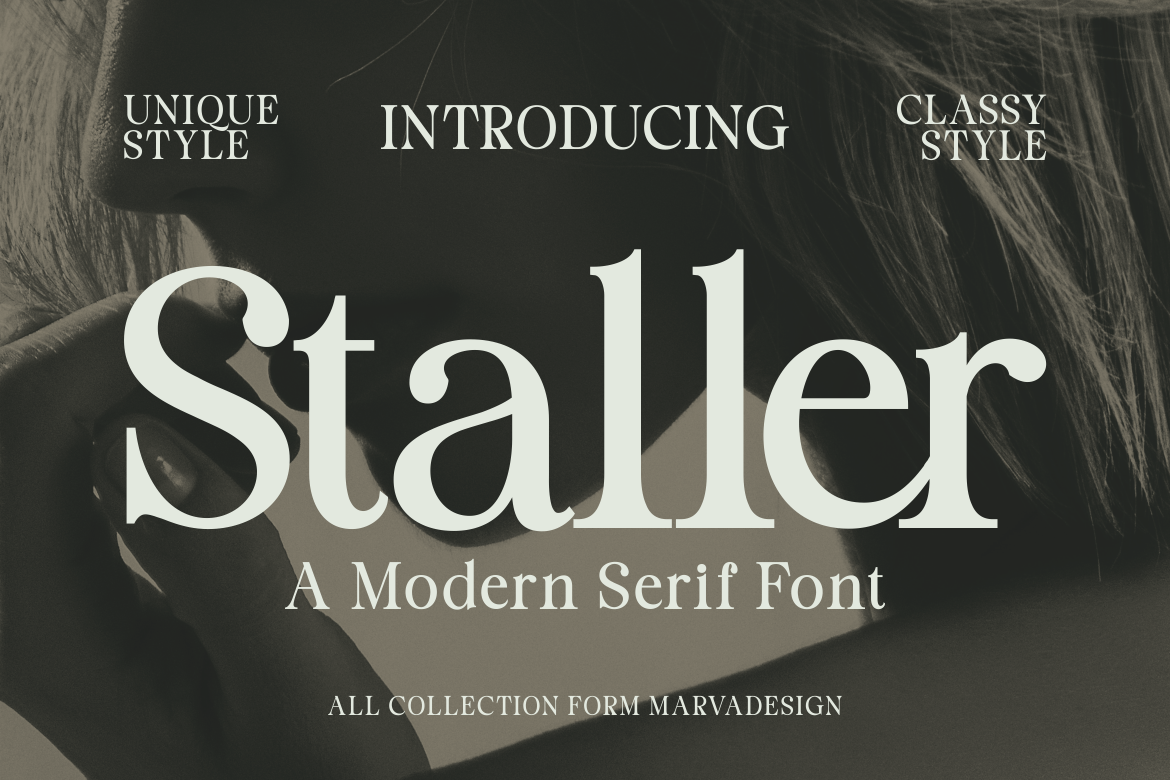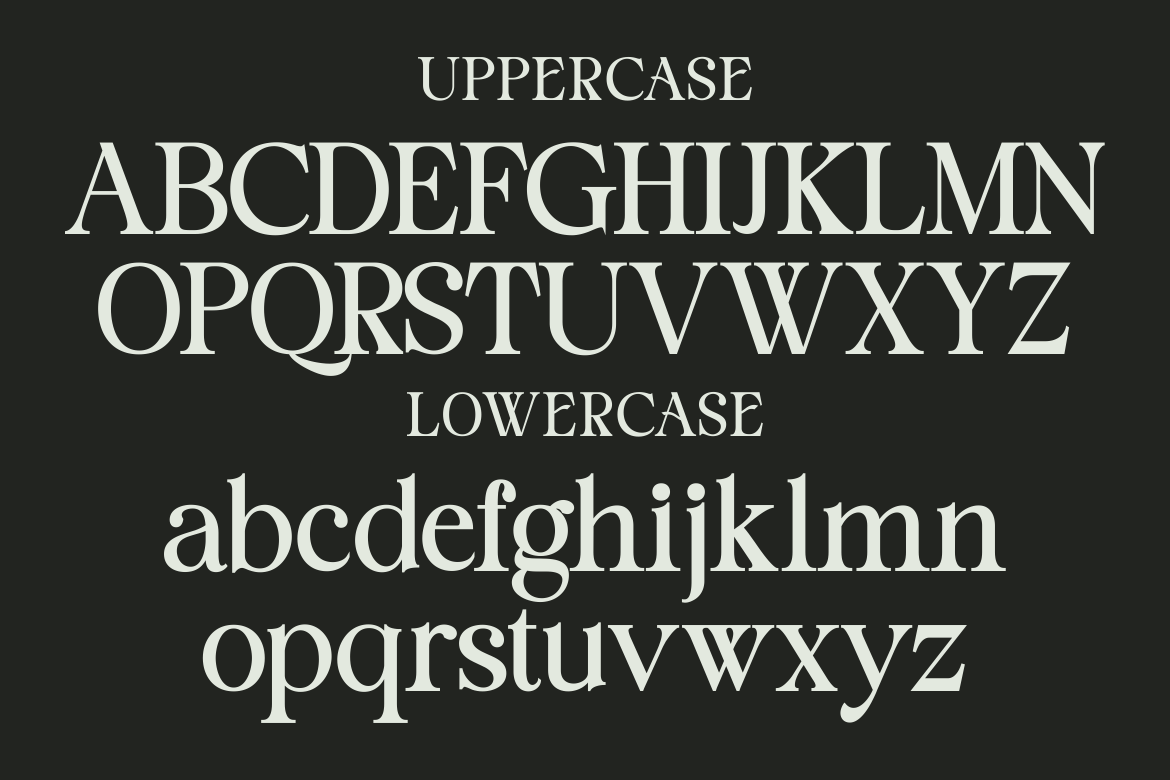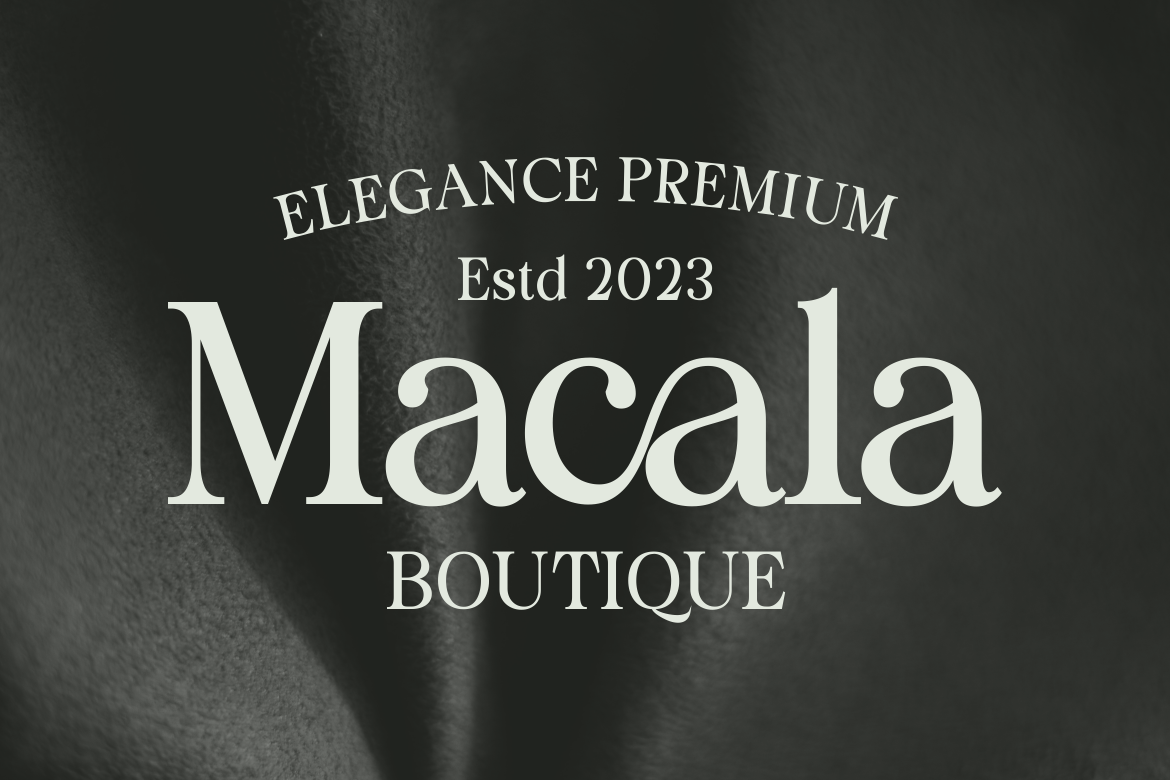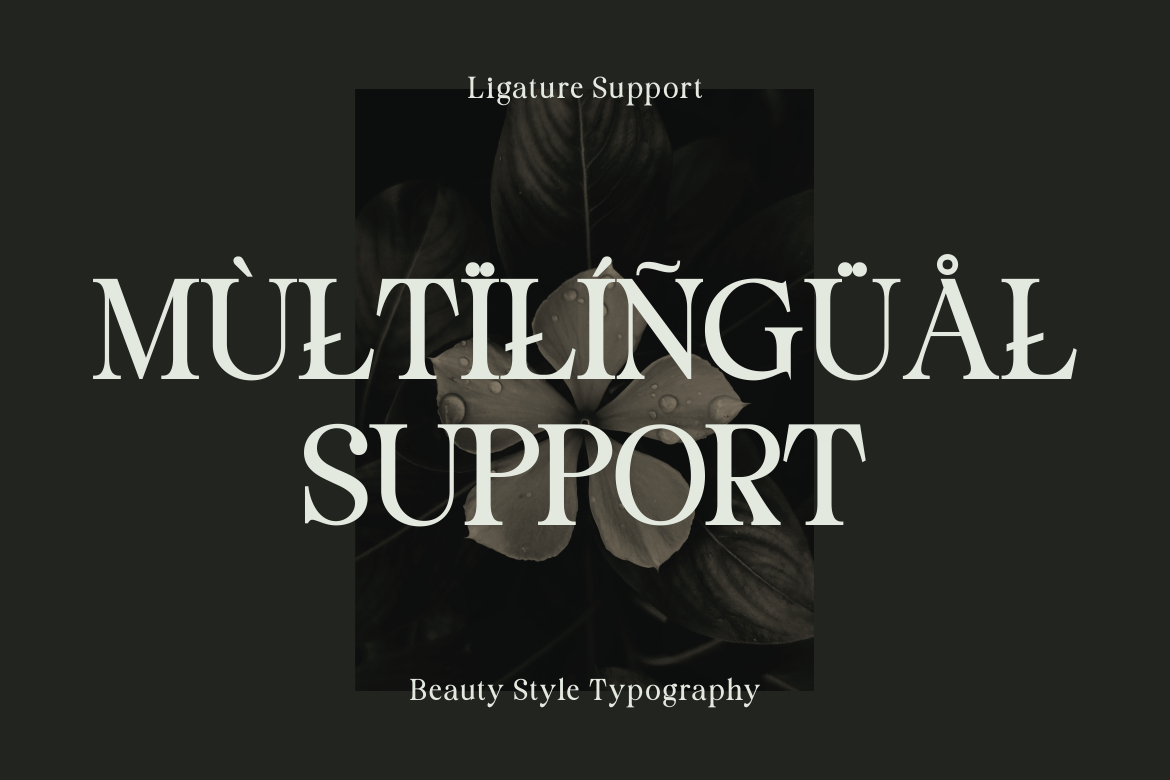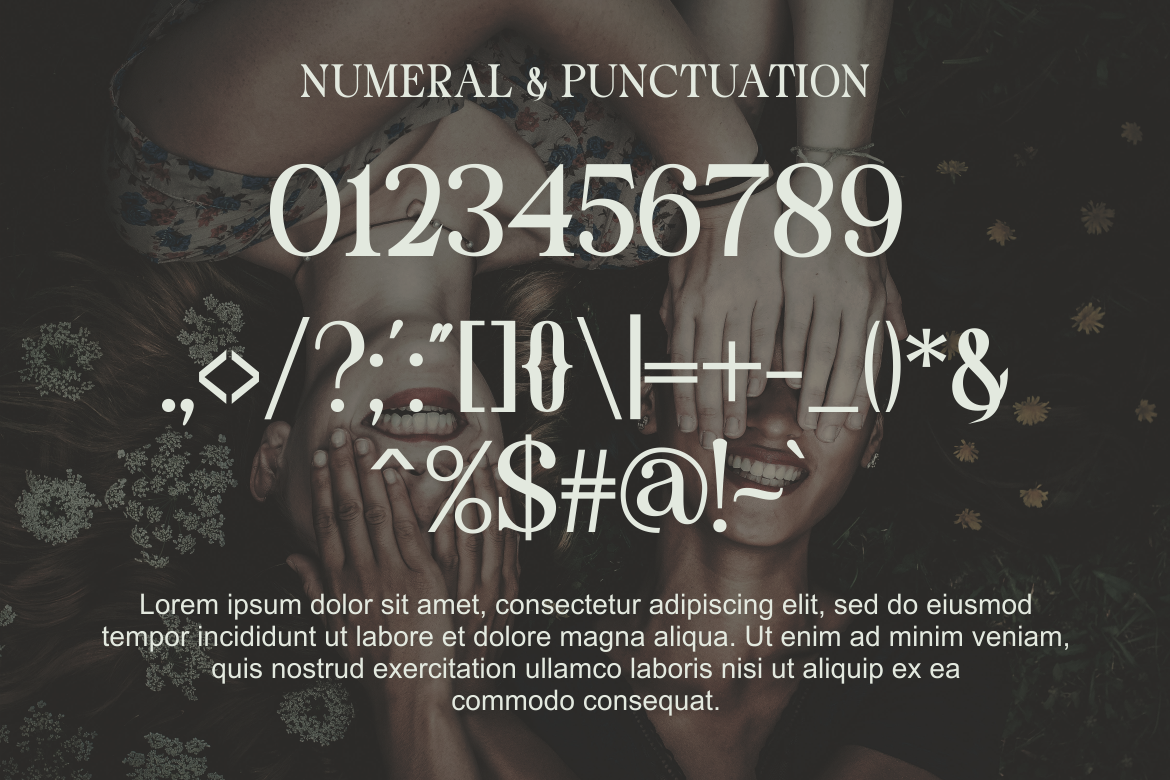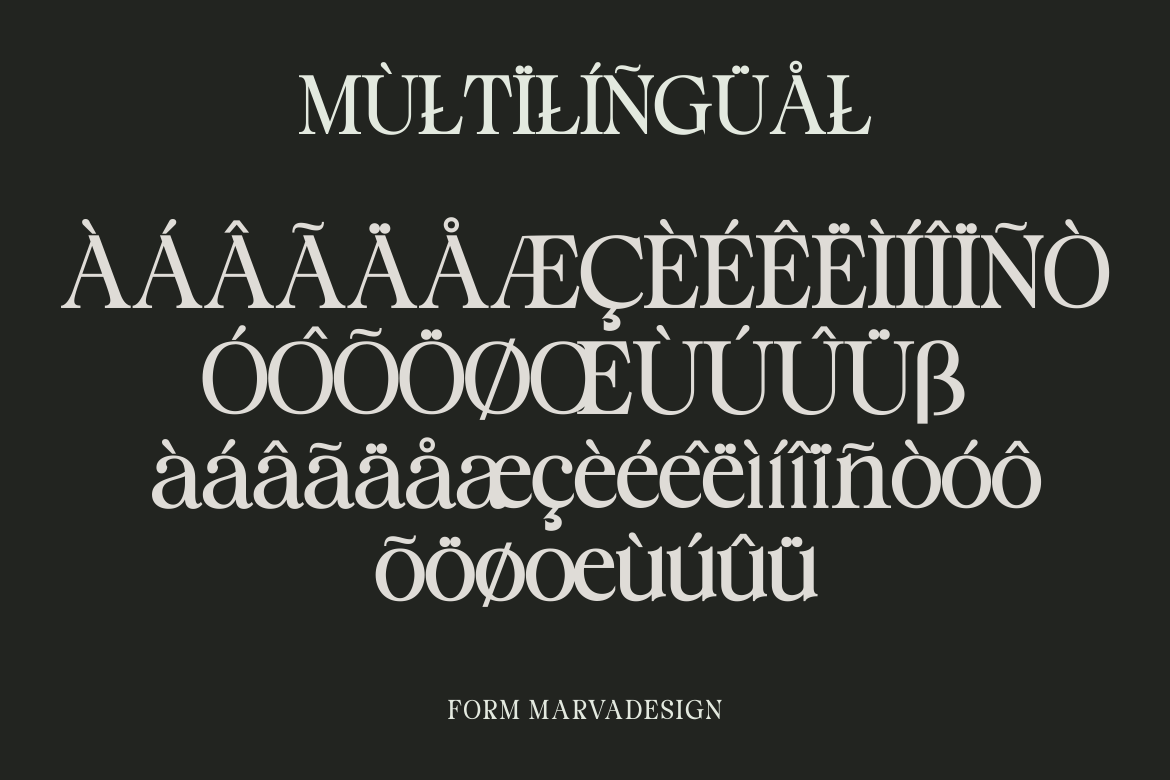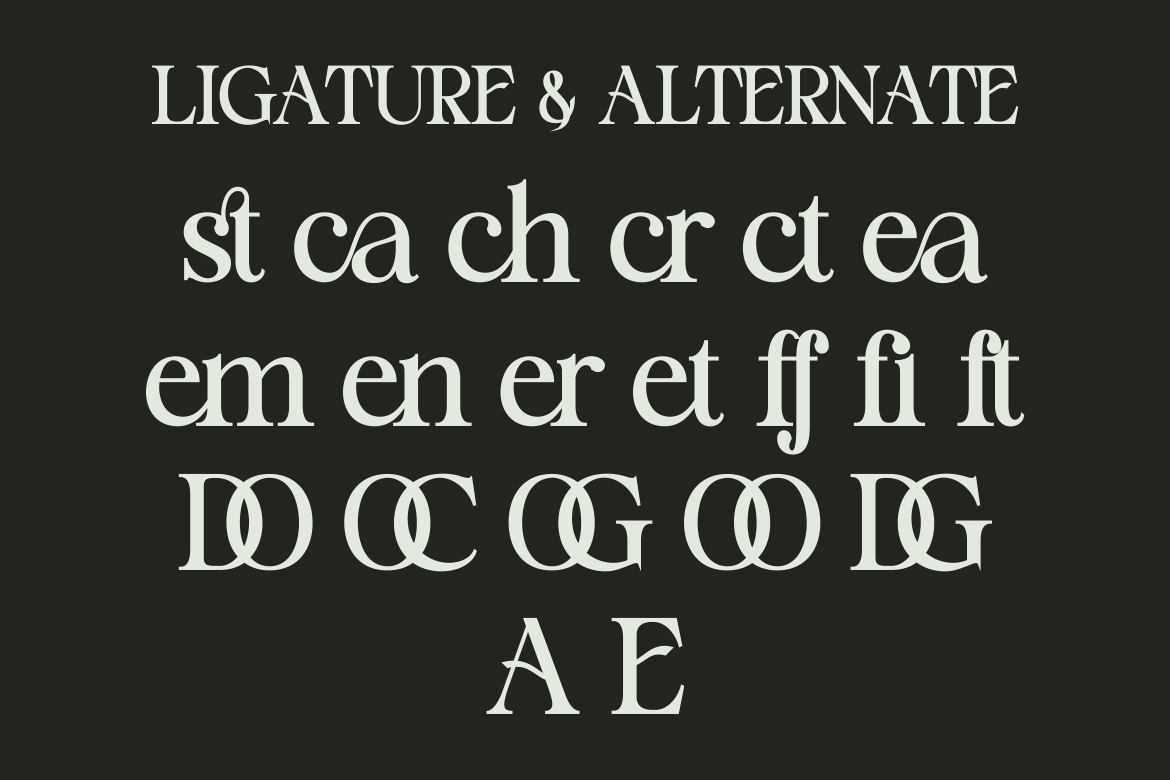
MarketplaceFontsStaller - A Modern Beauty Font
Introducing our new product Staller Font - Modern Font Staller Font** - Modern Font is a bold and authentic display font. Tha font is suitable for any branding project like logo,Template Design, Product and many more. outstanding in a wide range of contexts.